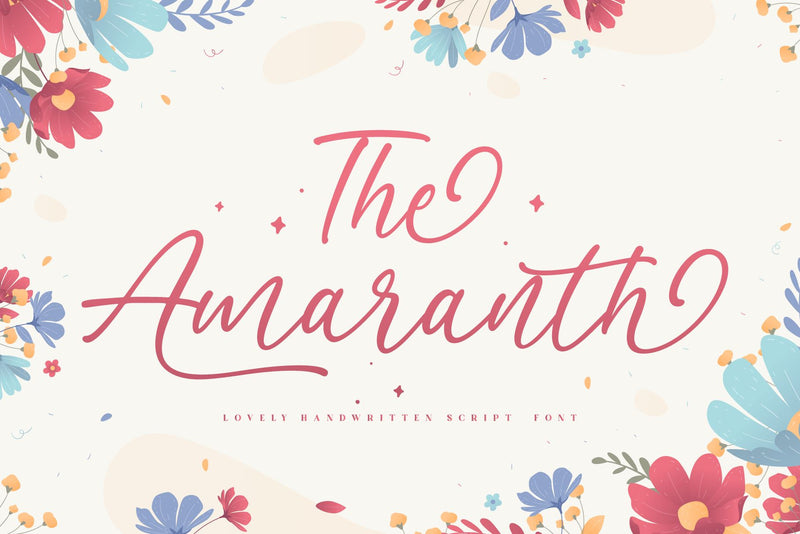
The Amaranth - Lovely Handwritten Script Font
The Amarant is a sweet handwritten script font that has beautiful and lovely shape. this font come with beautiful ligature and alternate that will be perfect for any kind design project.